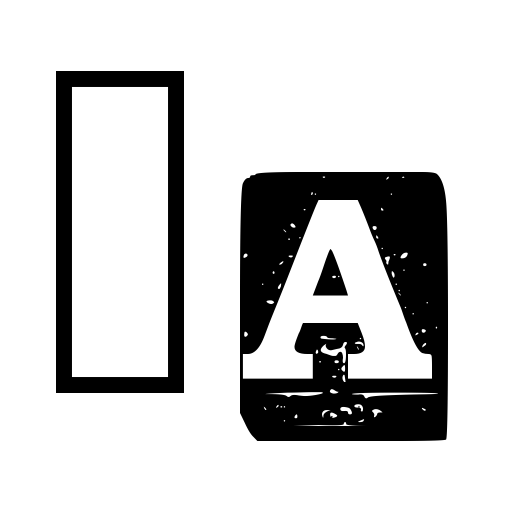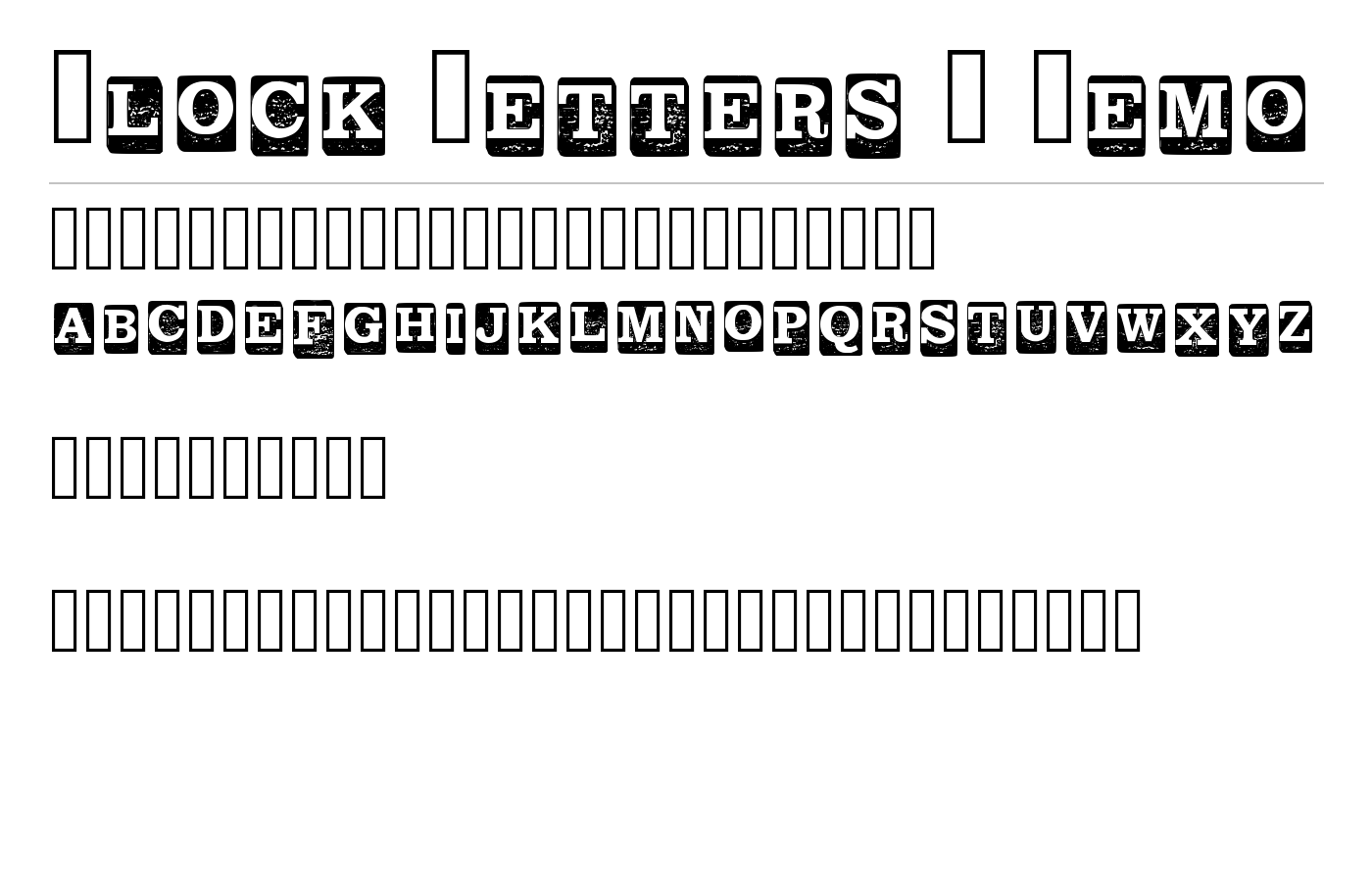
Block Letters _ Demo Font is a bold slab serif typeface with a strong, vintage western vibe, characterized by chunky letterforms enclosed in solid black squares with a distressed texture. This font's high contrast and rugged style make it perfect for impactful headlines, logos, or poster designs that seek a nostalgic, gritty personality, especially in branding related to retro or Americana themes. Its unique boxed presentation and uppercase-only style give it a distinct, eye-catching look suitable for standout display use rather than body text.
Block Letters _ Demo Font